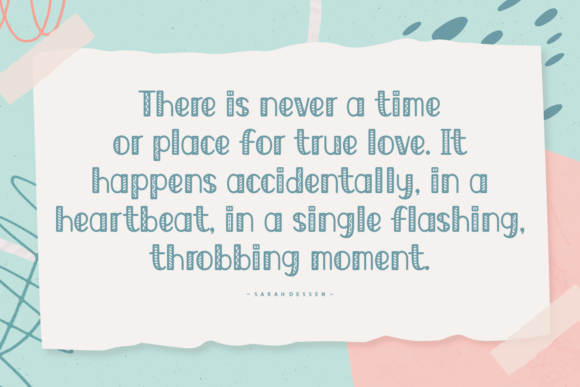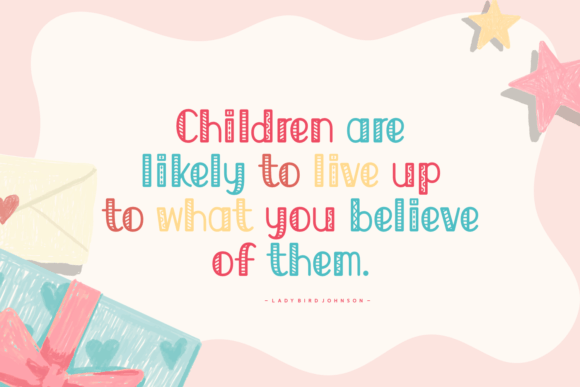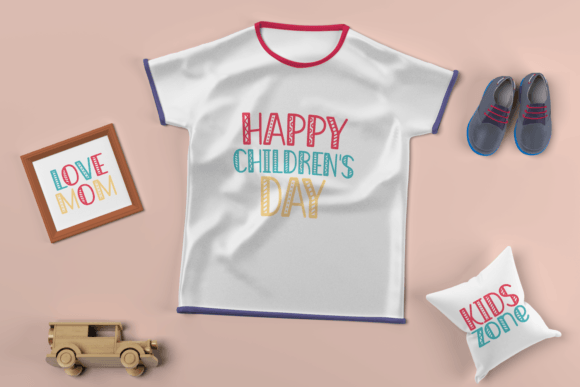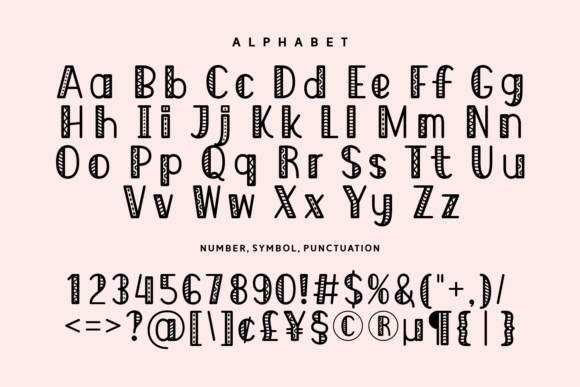
Introduction to Patris Joyful Font
Patris Joyful is a playful and lovely decorative font that is perfect for adding a touch of whimsy to any project.
With its soft curves and playful elements, itโs ideal for invitations, greeting cards, or any design that needs a touch of charm Its versatility makes it a must-have for any designerโs toolkit.
Key Features of Patris Joyful Font
Why Choose Patris Joyful Font?
Patris Joyful Font offers exceptional quality and versatility, making it a valuable addition to your design toolkit. Whether you’re creating for personal projects or commercial use, Patris Joyful Font delivers professional results.